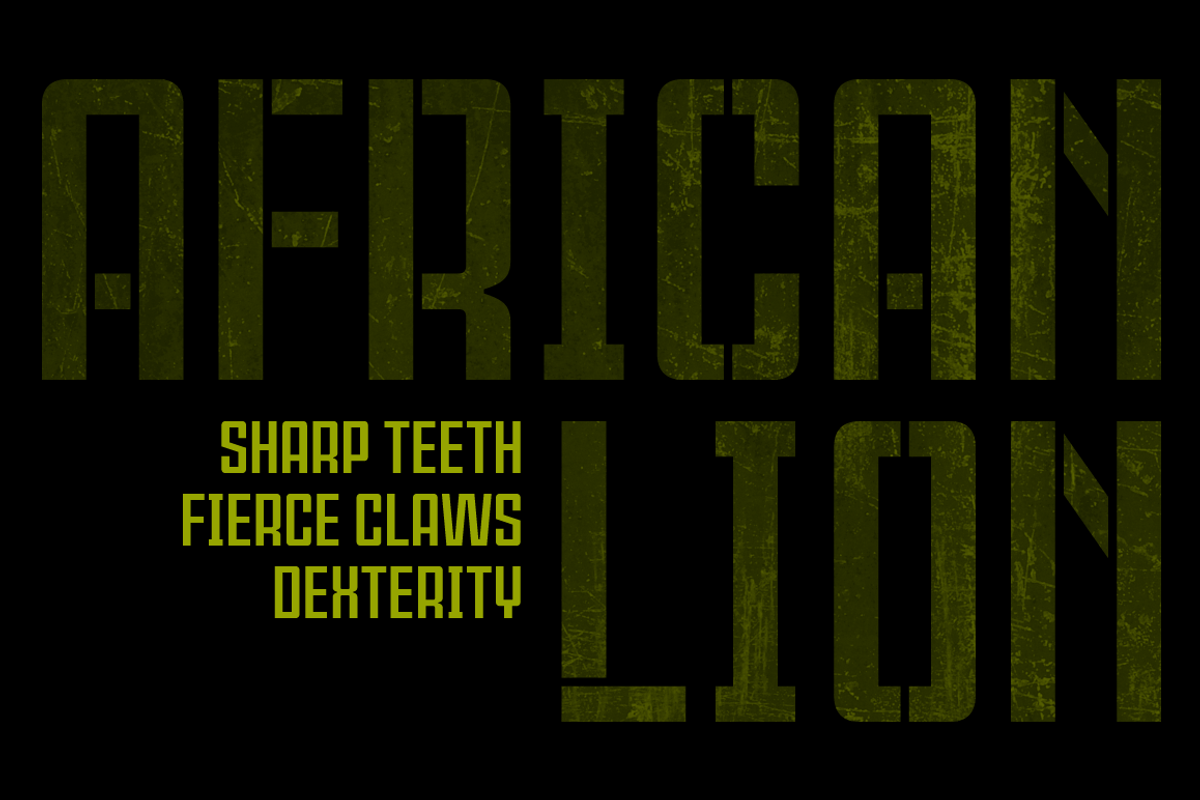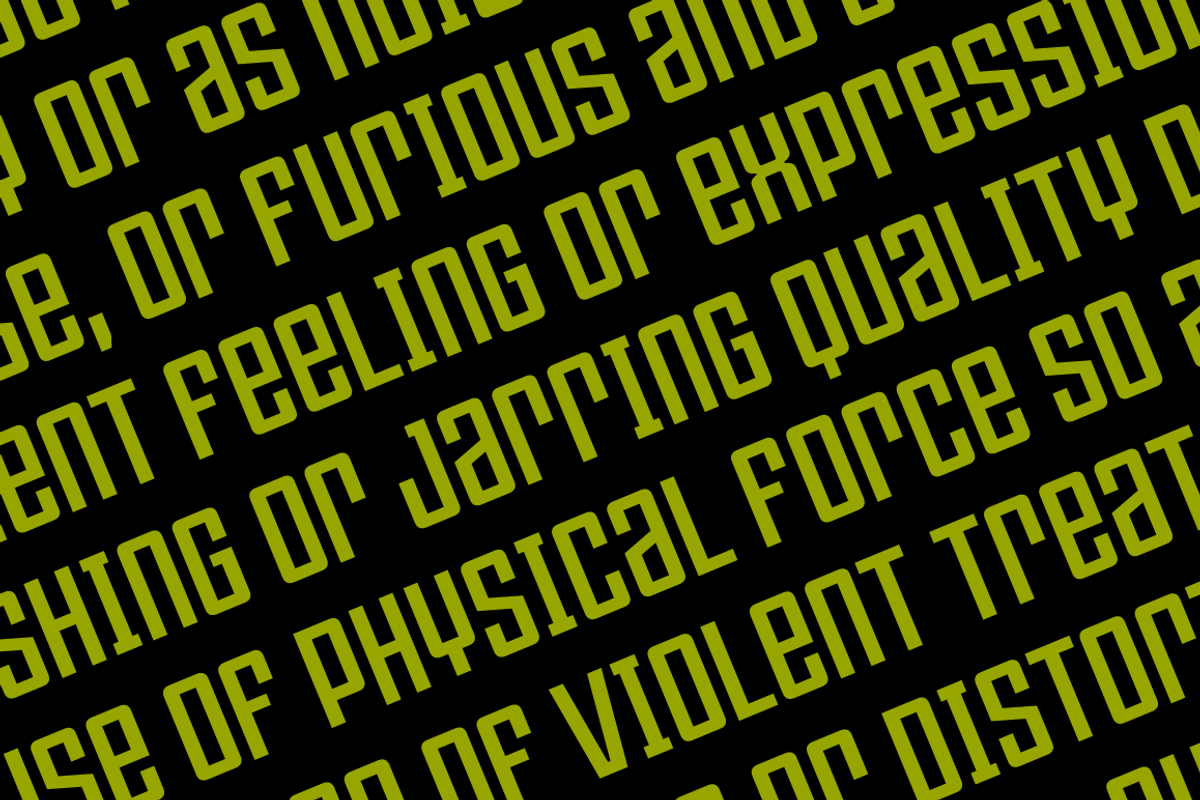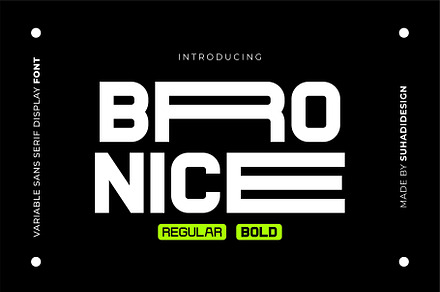
Violenta Font Family
Designer: Pablo Balcells
Design date: 2015
Violenta font family has been designed for Graviton Font Foundry by Pablo Balcells in 2015. It is a display, geometric typeface, with a condensed design and sharp angles that provides an aggresive and strong appearence.
Violenta consists of 8 styles. Each containing glyph coverage for several languages.